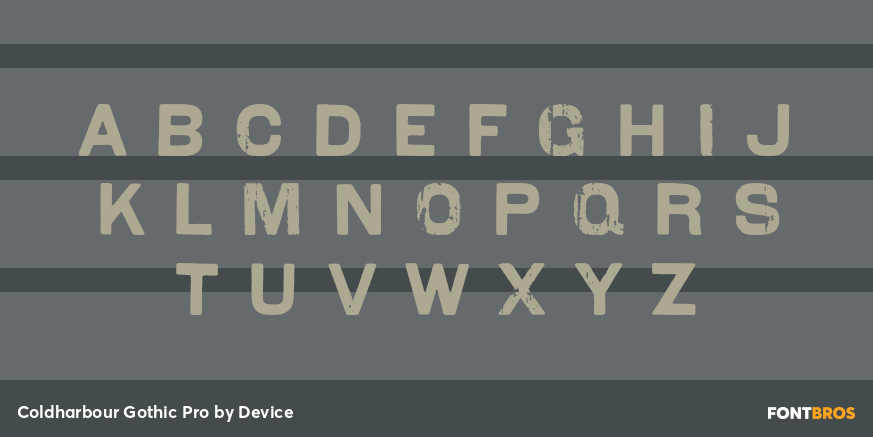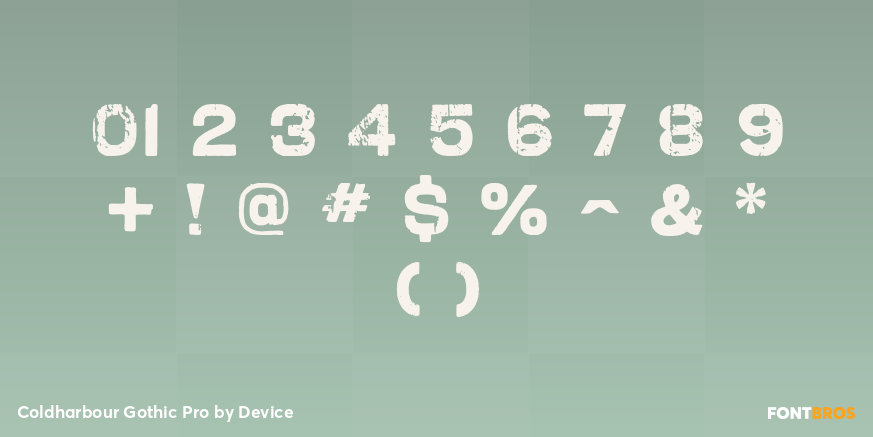
Coldharbour Gothic Pro
Font Family by Device
Reminicent of mid-19th century antique type and Victorian cast-iron signage, Coldharbour Gothic lovingly preserves all the eroded and rusted textures in digital form.
Characters have been selected to have cleaner and rougher counterparts - by flipping between cases, the user can customise the result and achieve the degree of decay or preservation they desire.